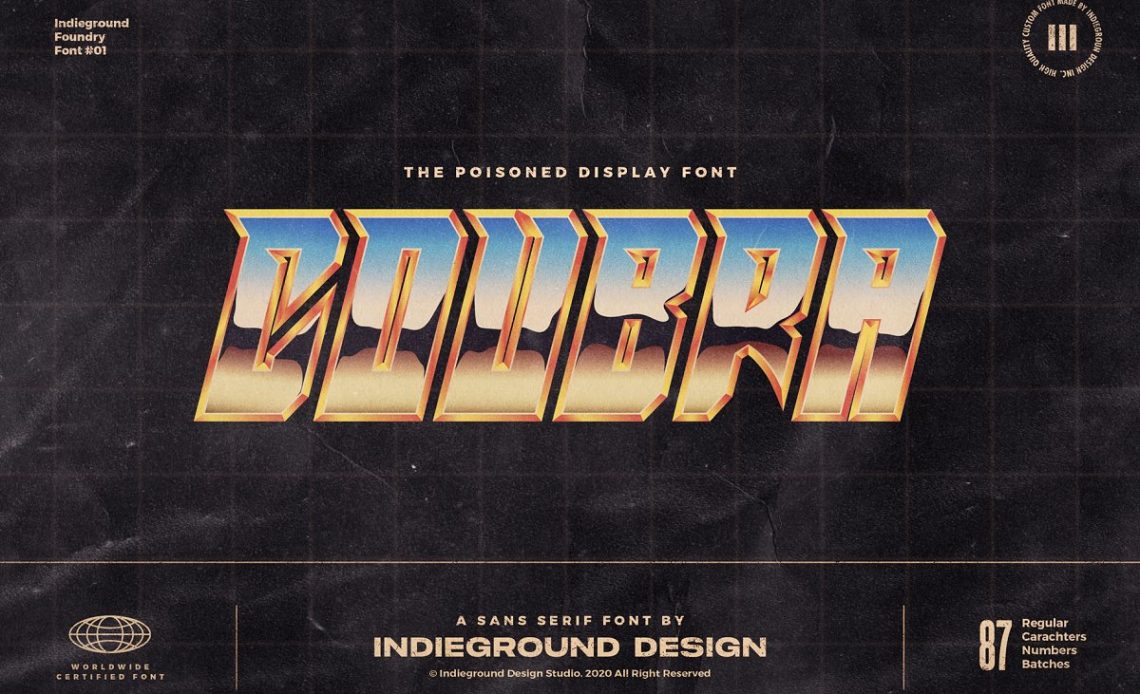
Introducing Coubra Font, the perfect choice for those seeking to add a retro 80s and synthwave vibe to their designs. Created by Indieground Design, this font is a true work of art that combines nostalgia with modernity.
With its full set of 87 characters, the regular commercial version of Coubra Font is a versatile and eye-catching display font that is sure to elevate your projects to the next level. Whether you're designing a poster, flyer, or logo, this font is guaranteed to make a statement.
But that's not all - the commercial version also includes an EPS file with the Chrome Effect shown in the preview, providing you with even more creative options. The Coubra Font family comes in several formats, including TTF, OTF, WOFF, WOFF2, and EPS, ensuring that you have everything you need to create stunning designs.
When you download Coubra Font, you're not just getting a font - you're getting a tool that will help you express your creativity and capture the attention of your audience. With its bold and unique design, this font is perfect for designers, marketers, and entrepreneurs looking to stand out from the crowd.
So why settle for a generic font when you can use Coubra Font to add character and personality to your designs? Download Coubra Font today and take your projects to the next level!